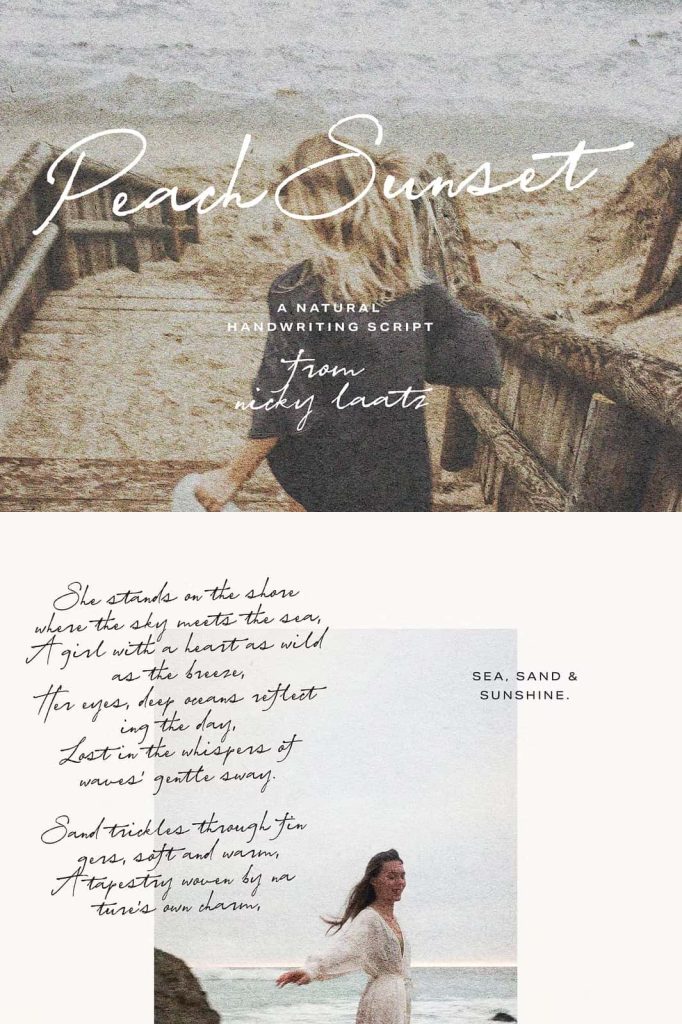
Peach Sunset ScriptleastedJuly 12, 2025Fonts Say hello to ‘Peach Sunset Script’ ! – A super chic, super casual, realistic looking handwriting script. Download